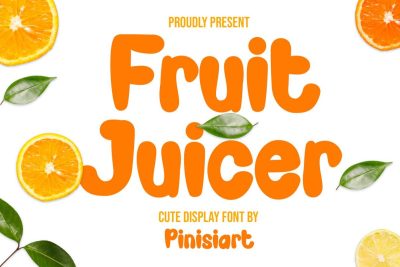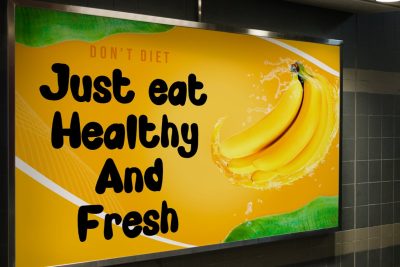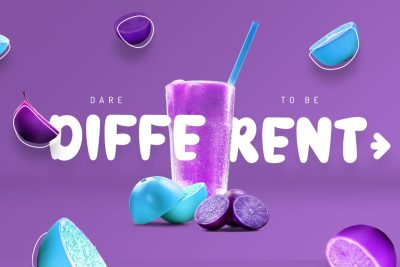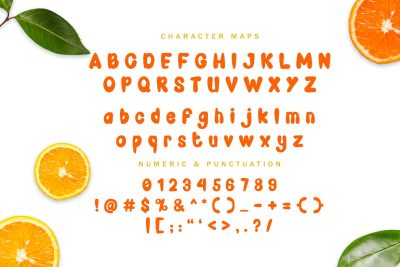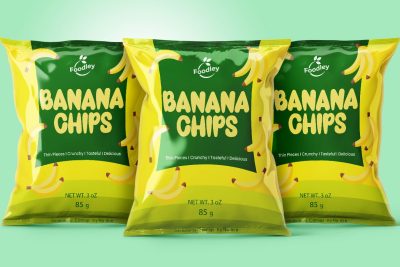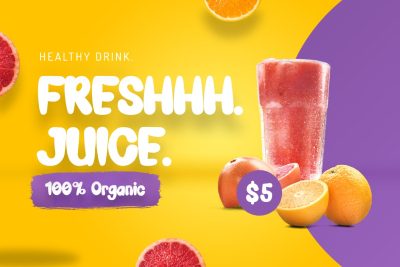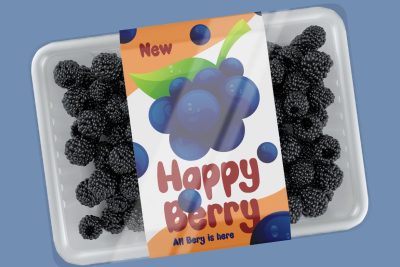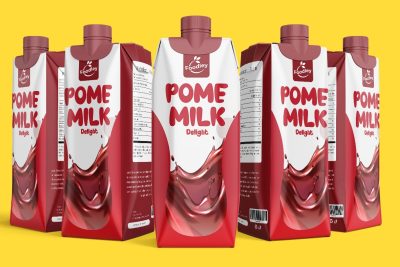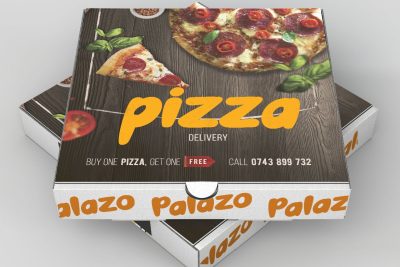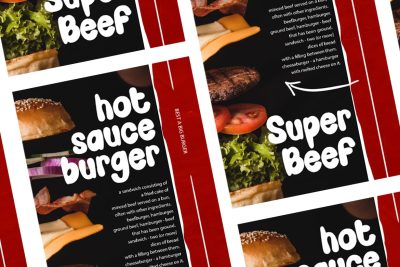
Kids font Fruit Juicer
Fruit Juicer
Kids font Fruit Juicer is a fun and playful typeface designed to bring freshness and creativity to your designs. Its rounded, bubbly letterforms create a joyful and approachable vibe. Moreover, the bold and quirky style grabs attention while maintaining a cheerful and lighthearted tone. Inspired by the vibrant colors of fruits, Fruit Juicer not only adds energy but also makes your projects stand out.
Additionally, the font’s smooth curves ensure excellent readability across various mediums Whether used for headlines, logos, or packaging, Fruit Juicer stands out as a bold yet approachable font. Whether for headlines, logos, or packaging, Fruit Juicer always delivers a bold yet friendly design. As a result, it is perfect for projects targeting children and family-oriented audiences.
Kids font Fruit Juicer Suitable for:
Fruit Juicer is ideal for creators who want to add fun and freshness to their work. Furthermore, it is especially suitable for:
1. Children’s content creators: The playful style works perfectly for kids’ books, activity sheets, and educational materials. Consequently, it keeps children engaged while making the content more enjoyable.
2. Marketers and advertisers: Fruit Juicer enhances campaigns, product packaging, and branding aimed at younger audiences. Specifically, its vibrant design aligns with themes of fun, creativity, and energy.
3. Food and beverage brands: This font is a fantastic choice for juice bars, smoothie shops, or healthy snack packaging. Therefore, it emphasizes freshness and adds a lively touch to branding.
4. Event planners: Use it for flyers, invitations, and posters for kids’ parties or family-friendly events. In particular, its cheerful design ensures your materials stand out.
5. Social media creators: Add a bold and creative touch to posts, stories, or thumbnails. Moreover, this font is perfect for family-friendly or wellness-themed content, making your visuals more engaging.
In conclusion, Kids font Fruit Juicer brings joy, energy, and creativity to every design. Consequently, it serves as a versatile and fun choice for professionals in many creative fields!
• Basic Latin A-Z and a-z, Numbers, Punctuation
Fresh and inviting with lots of energy and vitamins. Fruit Juicer will spice thing ups with positivity.